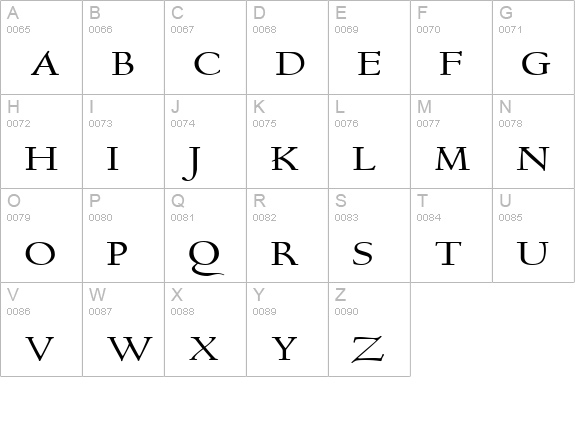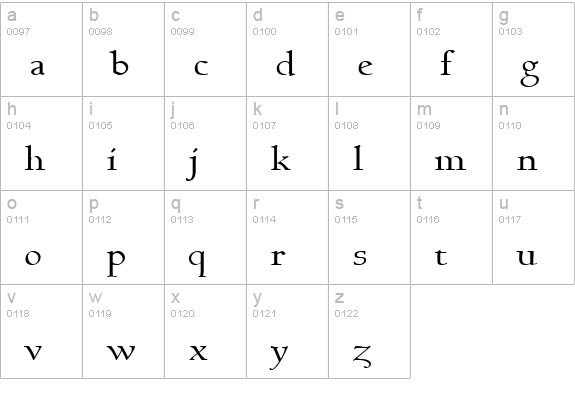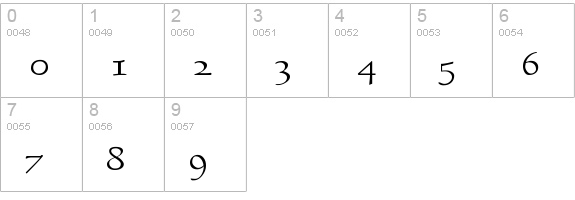
Bravo-Extended Normal Font Details
Bravo-Extended Normal is the standard, neutral, extended-width variant in the Bravo typeface family \xE2\x80\x94 well suited to general body text, paragraphs, and standard typographic work.
Bravo-Extended Normal font is a versatile and elegant typeface that exudes modernity and sophistication. Its extended design offers a unique twist on traditional fonts, making it perfect for a wide range of design projects. With its clean lines and balanced proportions, Bravo-Extended Normal font is both eye-catching and easy to read. What sets Bravo-Extended Normal font apart is its versatility – it can be used for anything from branding and advertising to web design and print materials. Whether you're creating a sleek corporate identity or a stylish magazine layout, this font is sure to make a statement. Best of all, Bravo-Extended Normal font is available for free download at FontsMarket.com. This means you can easily add this stunning typeface to your collection without breaking the bank. Don't miss out on the opportunity to elevate your designs with the timeless appeal of Bravo-Extended Normal font. Download it today and see the difference it can make in your projects.